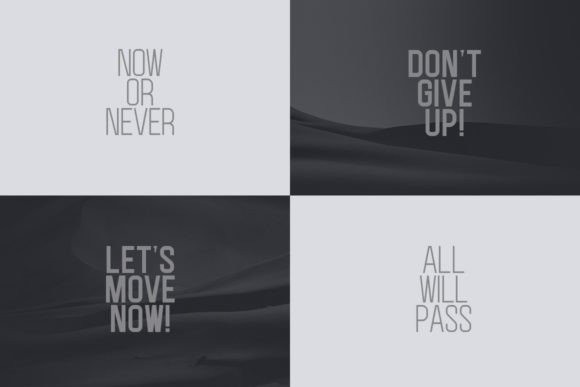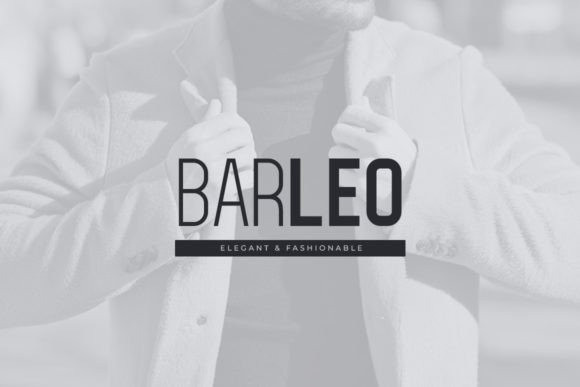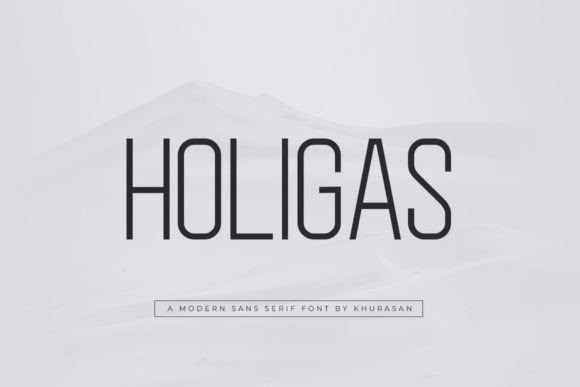
Holigas Font
Holigas Font is a clean, unique and modern sans serif font. The smooth and light execution makes this font look sleek and elegant, feminine which is perfect for girly branding designs. It can easily be matched to an incredibly large set of projects, so add it to your creative ideas and notice how it makes them stand out!